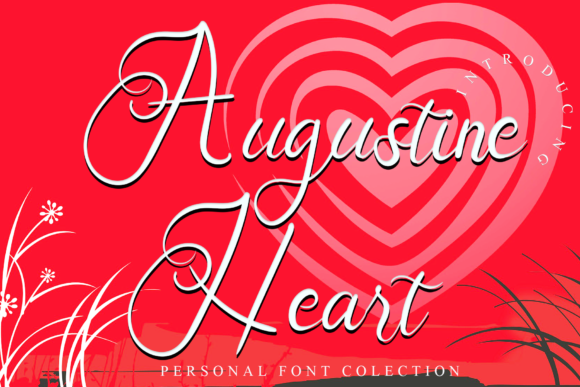
The Sweet Spot: Discovering the Charm of Augustine Heart Font
I’ll never forget the time I was working on a wedding invitation project, and my client asked for a font that would make their special day feel like a fairytale. I scoured the internet, tried out dozens of fonts, but nothing seemed quite right. That was until I stumbled upon the Augustine Heart font. 💕
This sweet and delicate handwritten font instantly captured the romantic, whimsical feel I was looking for. Its dainty and joyful vibe made it perfect for writing wedding invitations, cards, or any other design that needed a personalized touch. In this article, I’ll share my experience with the Augustine Heart font, its features, and how to make the most of it in your designs.
- ✨ Extremely elegant and refined, perfect for romantic designs
- 💕 Beautifully crafted with a high level of detail
- 🎉 Supports OpenType features, glyphs, and stylistic alternates
- ⚠️ May not be suitable for very large or bold designs, as it can lose its delicate charm
- 🤔 Limited availability of certain characters or glyphs, so be sure to test it thoroughly
The Story Behind the Font: Designer Inspiration
While I couldn’t find much information on the origins of the Augustine Heart font, it’s clear that it was designed with love and care. The creator’s attention to detail and commitment to craftsmanship are evident in every aspect of the font. Whether it’s the delicate letterforms or the range of OpenType features, Augustine Heart is a true gem.
Q: What type of designs is Augustine Heart best suited for?
A: Augustine Heart is perfect for romantic designs, such as wedding invitations, cards, and other personal stationery.
Q: Is Augustine Heart a difficult font to read?
A: No, Augustine Heart is highly legible, even at smaller font sizes, making it perfect for designs that require a lot of text.
Q: Can I use Augustine Heart with other fonts?
A: Yes, Augustine Heart pairs well with many other fonts, but be sure to choose complementary fonts that don’t compete with its delicate charm.